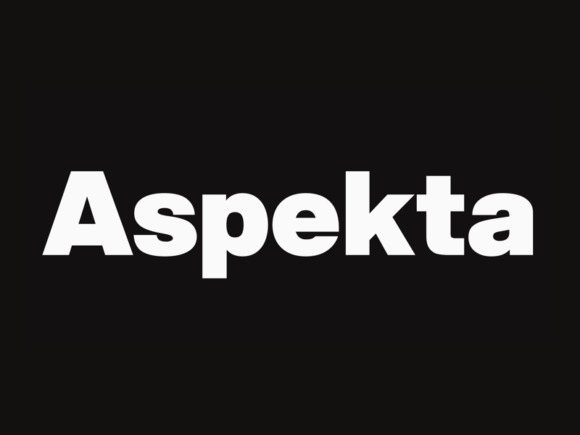
Aspekta Sans Serif Font is a modern neo grotesque family that consists of 20 weights. Inspired by a clean, simple and neutral style. The family provides a wide range of weights and stylistic alternatives that can be mixed to create strong branding.